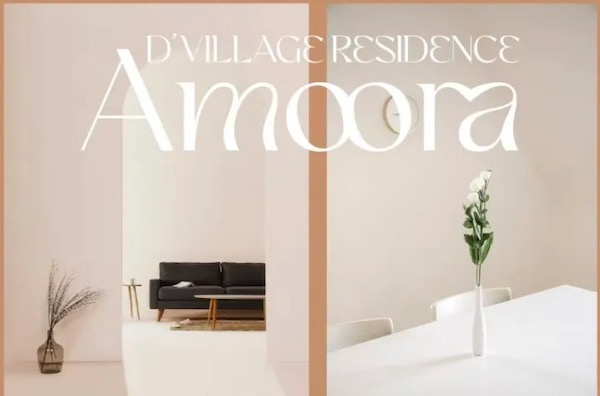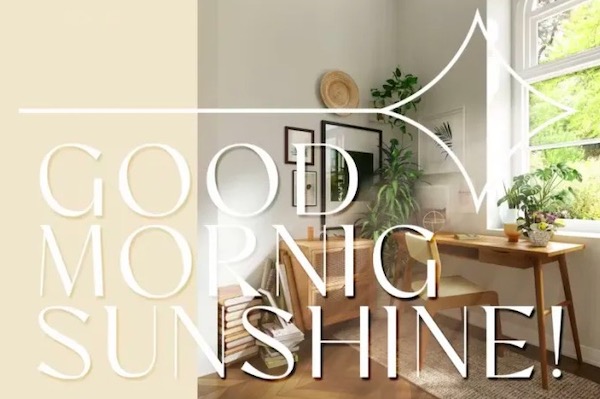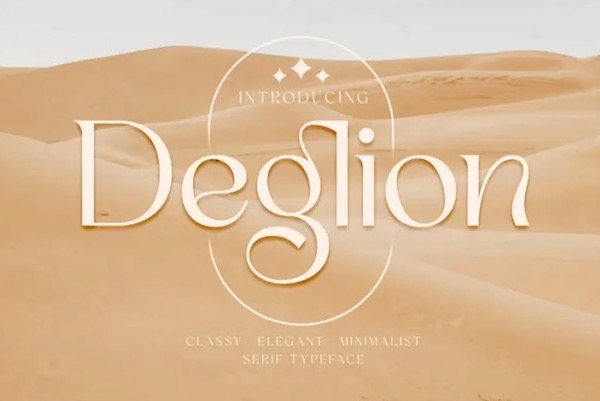
Deglion can be a dynamic & useful design tool for every project in the future. This display font is a modern luxury Classy Display Serif typeface and it’s a unique exclusive font that uses ligatures to smoothly link characters. Moreover, it’s very perfect for adding a unique twist to word-mark logos, monograms, or pull quotes. Deglion has 12 ligatures plus numbers and punctuation making it super fantastic. Ligature can be turned off if required for standard writing needs. What’s Included: